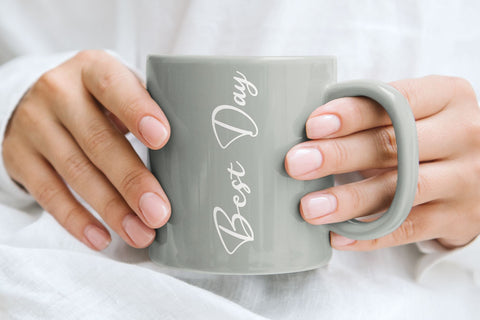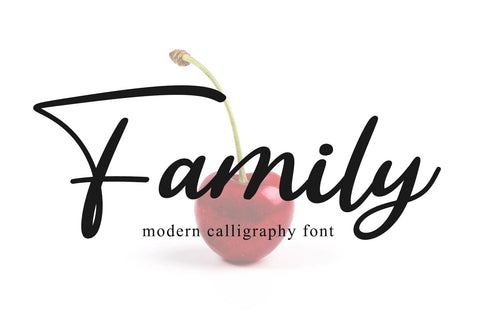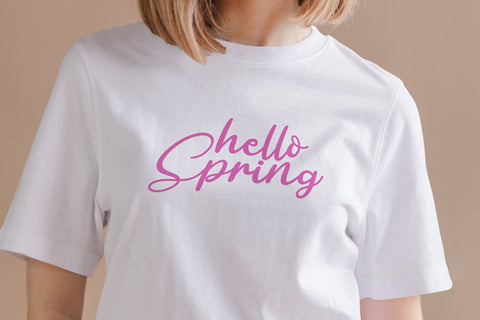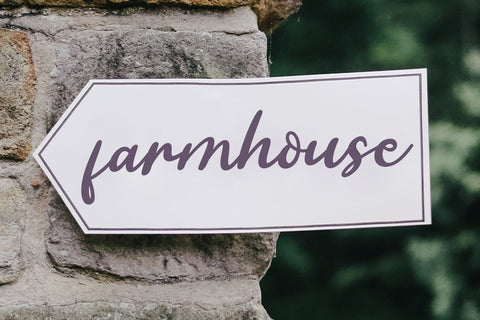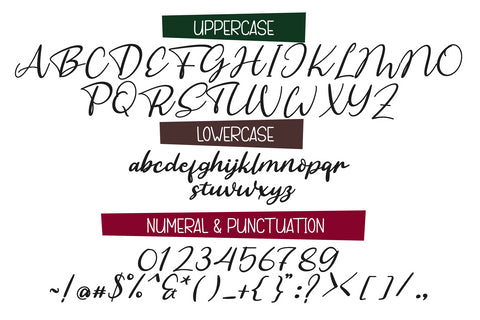
Family - handwritten font
Family is an elegant hand lettering look attractive and natural! Every single letters have been carefully crafted to make your text looks beautiful.
Every letter has a unique and beautiful touch, which will make your design come alive!